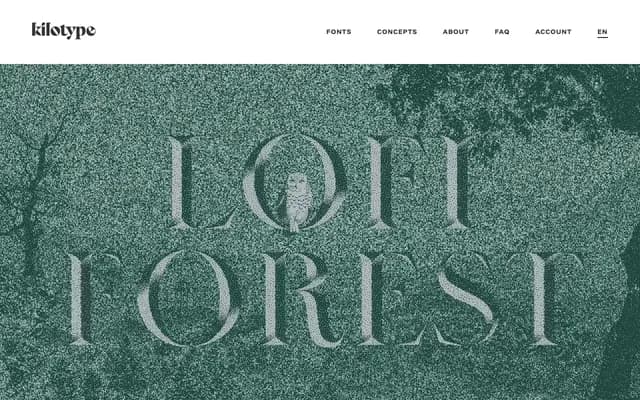
Lofi Forest
A large-scale pixel typeface by Selma Losch built from individually placed pixels to evoke chiselled stone inscriptions, available in two layerable styles for polychrome effects.
Rather than mimicking screen constraints, Lofi Forest scales the pixel aesthetic up to monumental proportions, each letter constructed from hundreds of discrete pixels that produce sharp lines and soft gradients simultaneously. The Pixel and Solid styles can be used independently or layered in contrasting colours for polychrome display work. Classical letter proportions sit on a coarse grid, producing something that reads simultaneously as ancient inscription and contemporary graphic experiment. Won the German Design Award in 2026 and received a TDC Certificate of Typographic Excellence in 2025.
A large-scale pixel typeface with two layerable styles (Pixel and Solid), built from individually placed pixels to evoke inscribed stone and polychrome effects rather than screen utility.